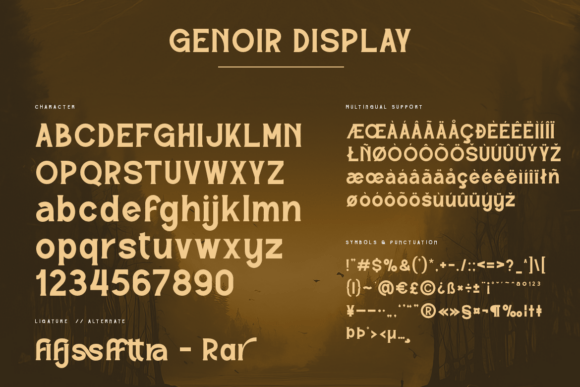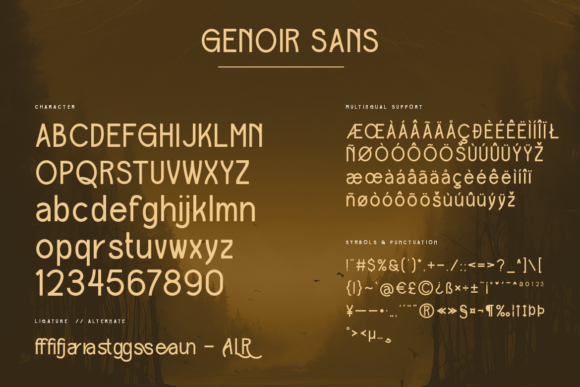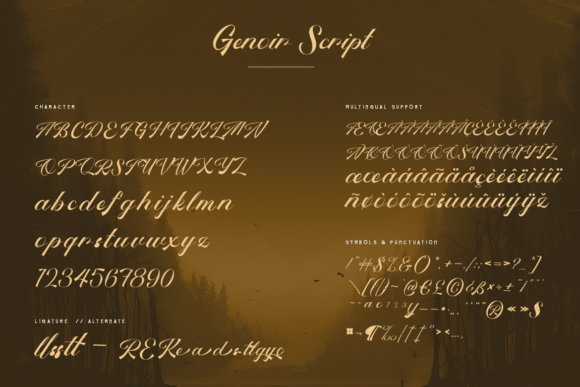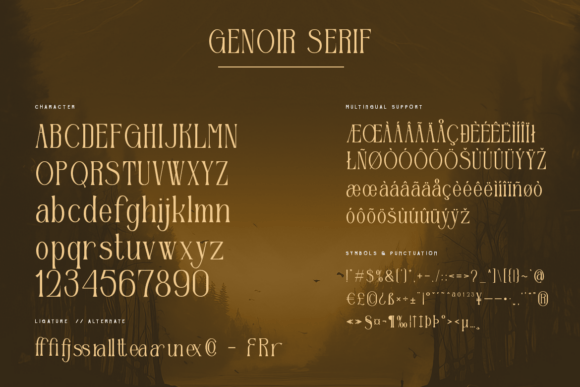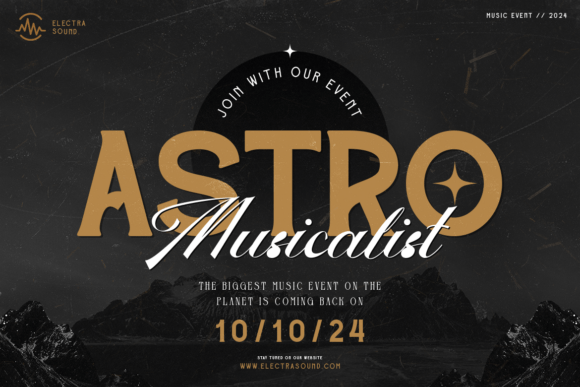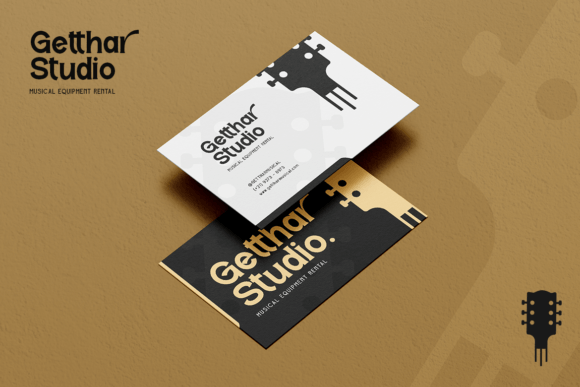
Introducing Genoir: A Timeless Vintage Font Collection
In the world of design, typography plays a crucial role in conveying the message, tone, and aesthetic of a brand or project. For those seeking to add a touch of nostalgia and sophistication to their designs, the Genoir font collection is an exquisite solution. This carefully crafted set of vintage fonts is designed to evoke an enduring allure, transporting your audience to a bygone era of elegance and refinement.
The Inspiration Behind Genoir
The Genoir font collection draws inspiration from diverse periods of iconic typography, meticulously researched and reimagined for modern applications. Each font within the collection has been exquisitely constructed to capture the essence of a bygone era, while maintaining a level of sophistication and versatility that appeals to contemporary designers. Whether you’re working on a logo, poster, editorial layout, or packaging, Genoir provides the perfect blend of retro charm and modern polish.
Unleash Your Creativity with Genoir
The Genoir font collection offers a wide range of choices to amplify your creative endeavors. With a focus on rich narrative and sophistication, each font has been tailored to resonate with designers and crafters seeking to add a touch of authenticity and elegance to their work. From classic and refined to bold and statement-making, Genoir provides the perfect font to bring your vision to life.
Optimal for Various Design Applications
Genoir’s versatility makes it an ideal choice for a variety of design applications, including:
- Logos: Create a lasting impression with a custom logo that exudes sophistication and elegance.
- Posters: Capture attention and evoke emotion with a bold, eye-catching poster that showcases your message.
- Editorial Layouts: Elevate your publication with refined typography that enhances the reading experience.
- Packaging: Stand out on store shelves with packaging that boasts a unique, retro charm.
The Benefits of Using Genoir
By incorporating the Genoir font collection into your design workflow, you’ll enjoy a range of benefits, including:
- Unique and distinctive typography: Set your designs apart with fonts that boast a rich history and nostalgic appeal.
- High-quality and versatile: Genoir fonts are designed to perform well in various contexts, ensuring your designs look polished and professional.
- Ease of use: Seamlessly integrate Genoir into your design workflow, with fonts that are easy to read and work with.
Experience the Elegance of the Past
In today’s fast-paced design landscape, it’s easy to get lost in a sea of modern and minimalist typography. However, with Genoir, you can tap into the timeless elegance of the past and bring a sense of sophistication to your designs. By combining classic charm with modern versatility, Genoir provides the perfect solution for designers and crafters seeking to create something truly special.
Make Genoir Your Present
Don’t just admire the elegance of the past – make it your present with the Genoir font pack. By incorporating this exquisite collection into your design workflow, you’ll unlock a world of creative possibilities, from vintage-inspired branding to sophisticated editorial layouts. Experience the allure of Genoir and discover a new way to elevate your designs with timeless typography.
In conclusion, the Genoir font collection is a treasure trove of vintage typography, carefully crafted to infuse your designs with an enduring allure and a sense of nostalgia. With its rich narrative, sophistication, and versatility, Genoir is the perfect solution for designers and crafters seeking to add a touch of elegance and refinement to their work. So why wait? Discover the Genoir font collection today and unlock a world of creative possibilities.